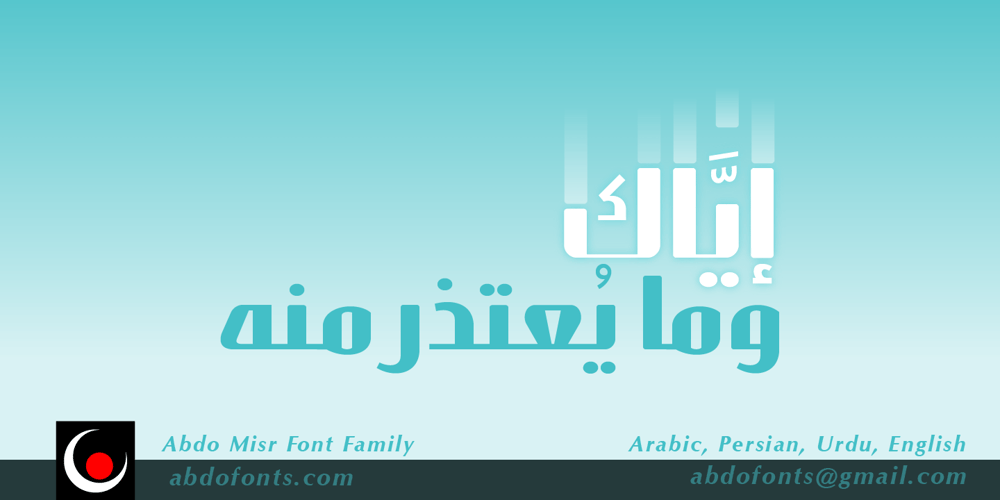
Abdo Misr
Abdo Misr font
Abdo Misr Font Family was designed by Abdulsamie Rajab and published by Abdo Fonts. Abdo Misr contains 3 styles and family package options. Abdo Misr is a geometrical style. This is an OpenType Font supporting Arabic, Persian, Urdu, abd English to and compatible with the various operation systems and modern software. The combination of modern Kufi and Geometrical styles and varying between straight and curved parts made it a beautiful typeface appropriate to the titles and slogans, and able to meet the desire of the user in the design of ads and modern designs of various types of audio and visual.